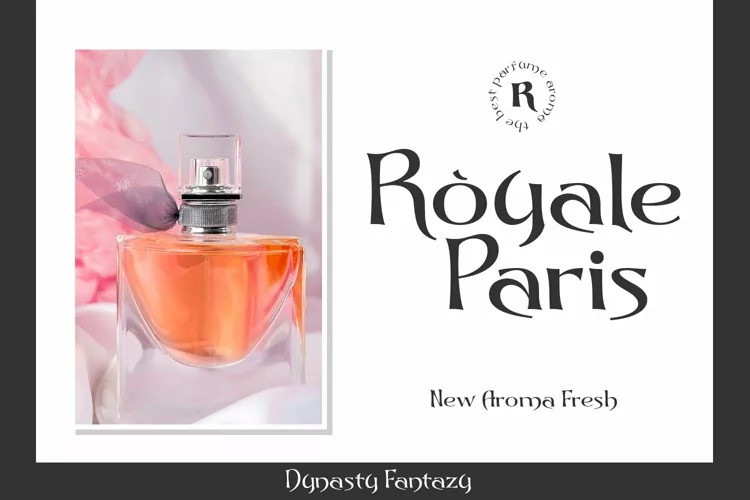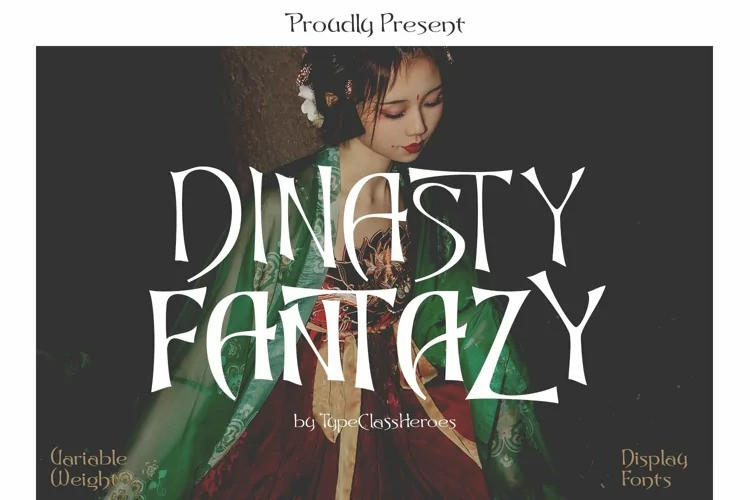
Dynasty Fantasy Font
Dynasty Fantazy Display Font is a new display font inspired by the empire era which will bring your project a strong and powerful touch. Browse through all the previews and get as inspired as I was when creating this font.
Dynasty Fantazy support for languages such as: Danish, English, Finnish, French, German, , Norwegian , Portuguese, Spanish, Swedish. In variable version, it allows multiple options when designing, adapting to different composition solutions. use this font for any branding, product packaging, invitation, quotes, t-shirt, label, poster, logo etc.